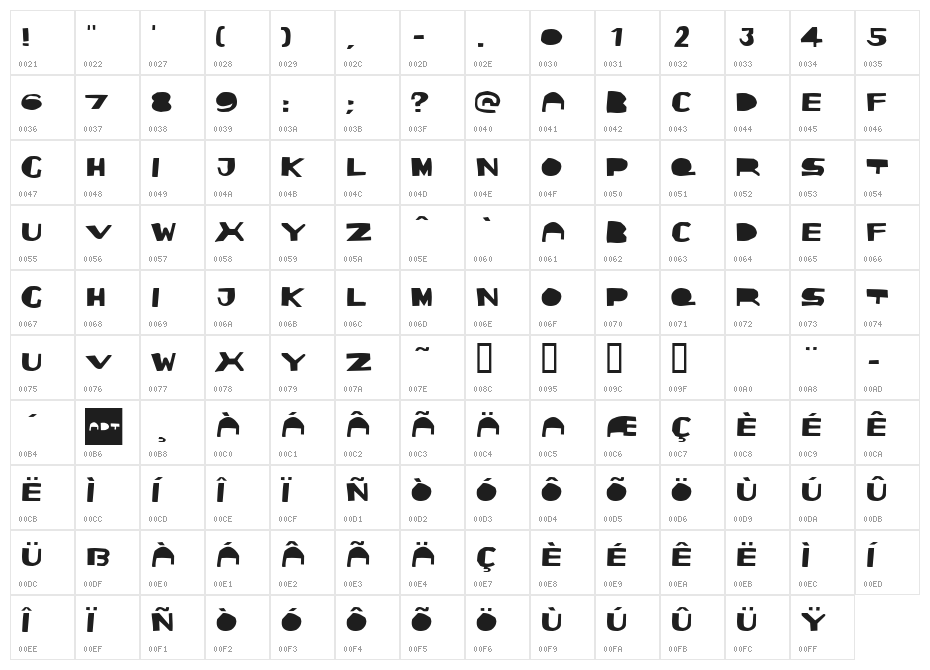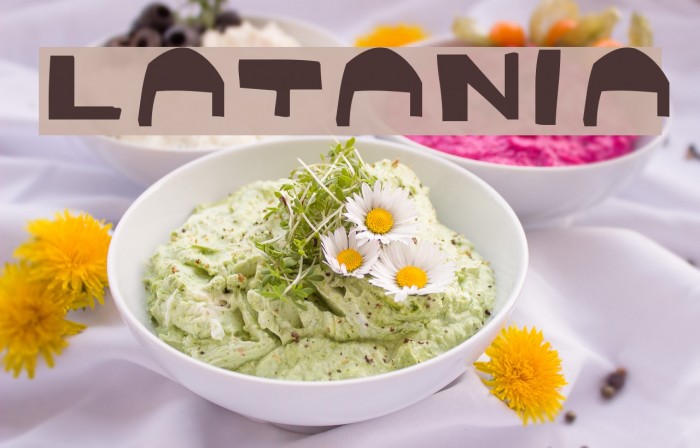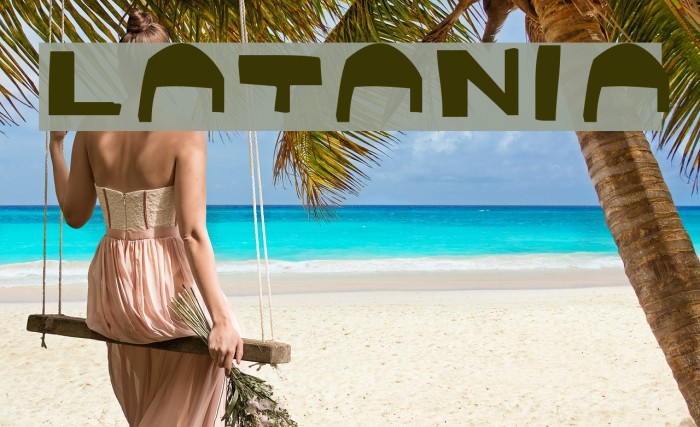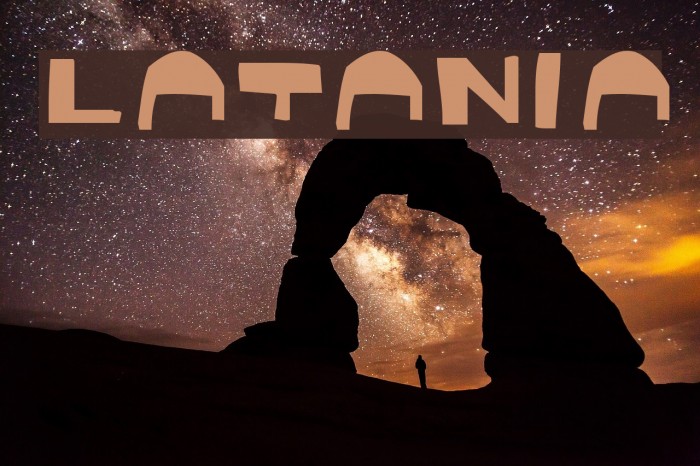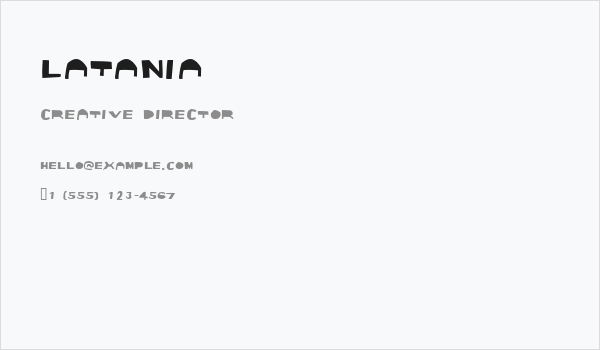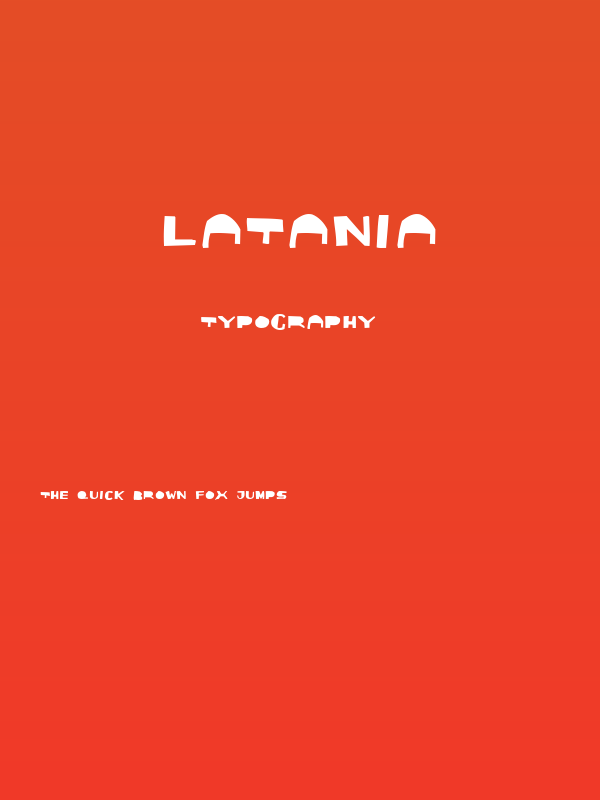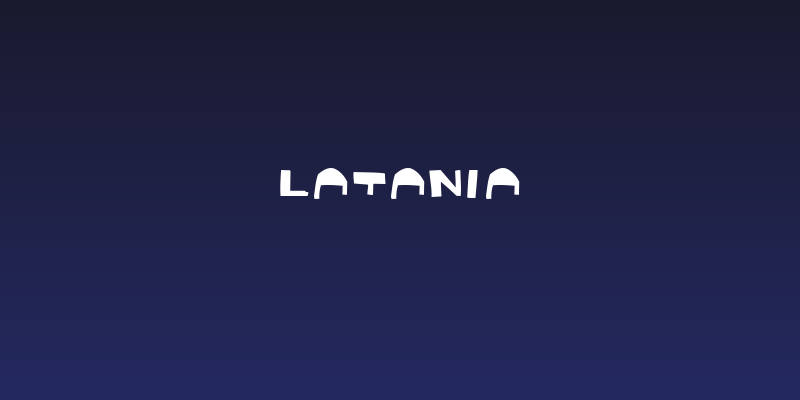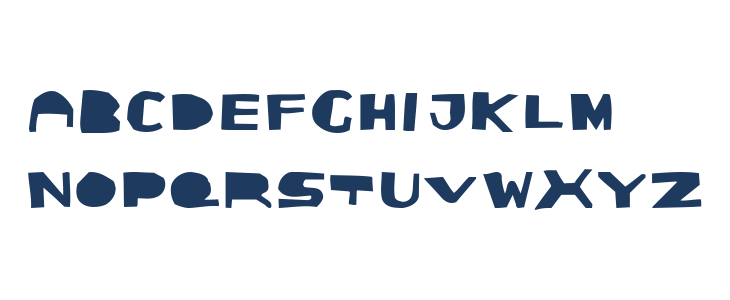
LaTania Font
LaTania Description
This font features a bold and dynamic style with a playful, irregular design. Each character has a unique, hand-cut appearance, giving it a distinctive and artistic flair. The uppercase and lowercase letters maintain a consistent boldness, while the numbers and special characters complement the overall aesthetic. The font's uneven edges and varying stroke widths create a sense of movement and energy, making it ideal for creative and eye-catching designs.
| Proposed Projects | Ideal for posters, album covers, branding projects, and any design that requires a bold, artistic touch. |